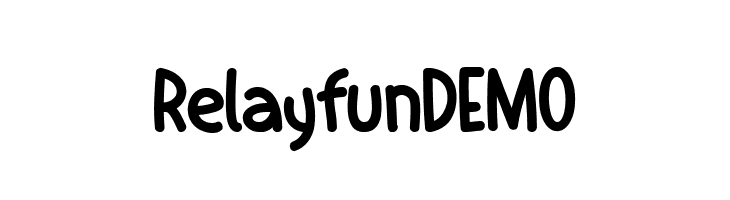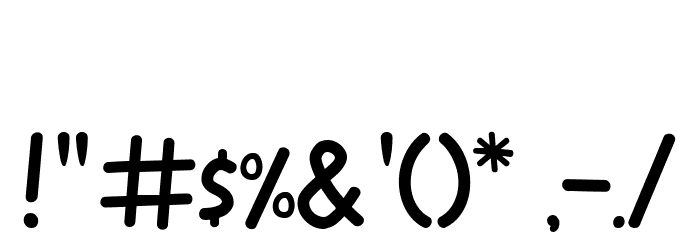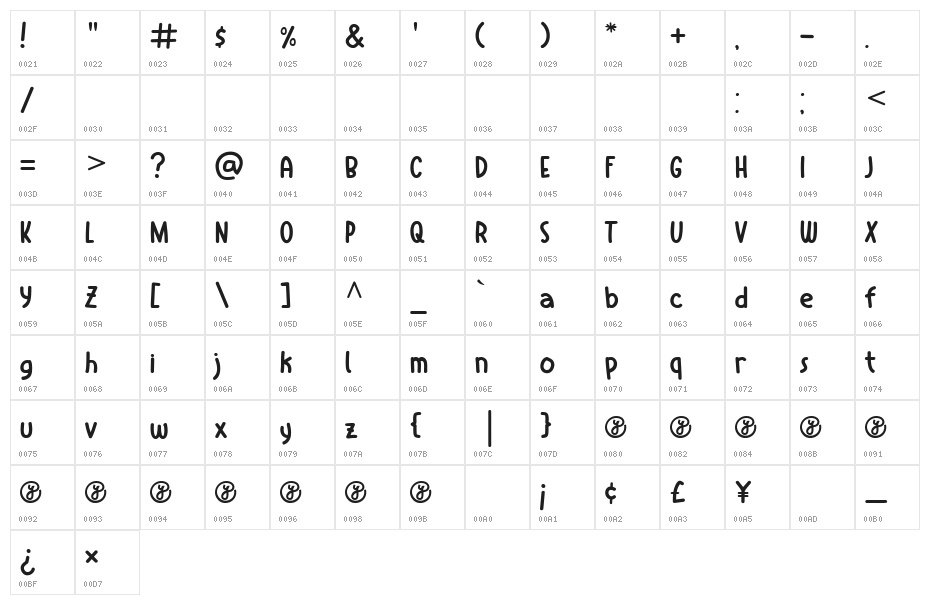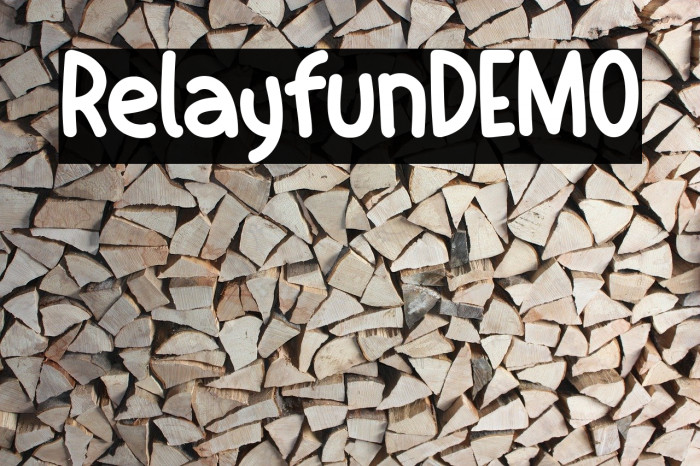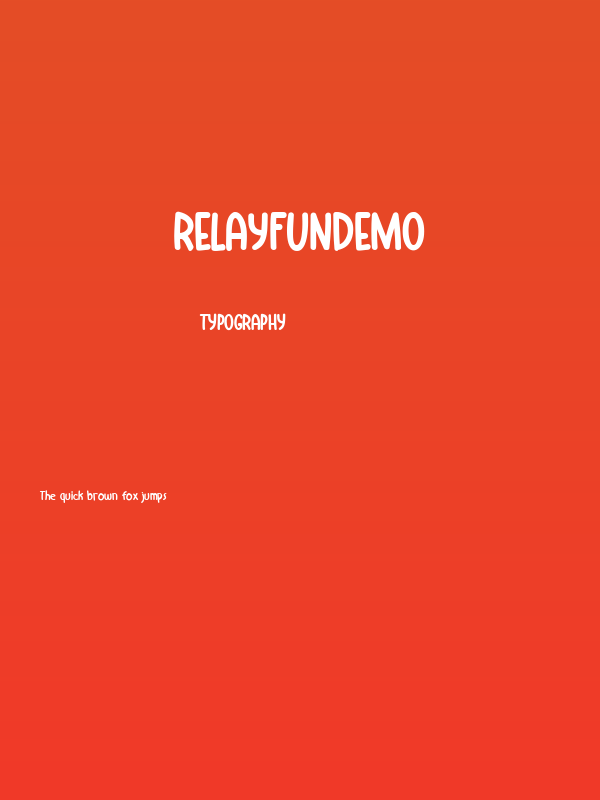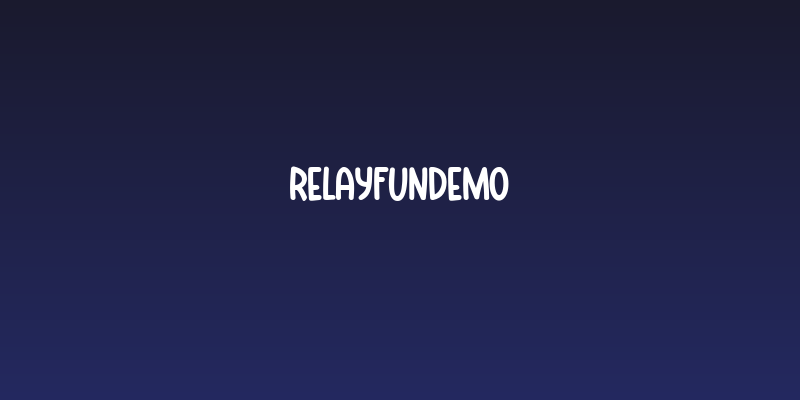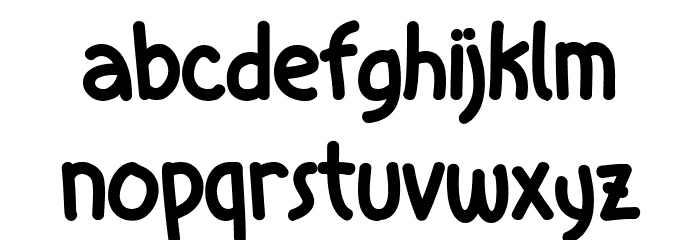
RelayfunDEMO Font
RelayfunDEMO Description
This playful and bold font features rounded edges and a hand-drawn aesthetic, giving it a friendly and approachable feel. The characters are slightly irregular, adding to its charm and uniqueness. The uppercase and lowercase letters maintain a consistent style, with a slight variation in stroke width that adds a touch of whimsy. The numerals and special characters are designed to match the overall playful theme, making this font ideal for creative projects. Its informal style makes it perfect for children's books, playful branding, or any project that requires a fun and lively touch.
| Proposed Projects | Ideal for children's books, playful branding, invitations, and creative designs. |